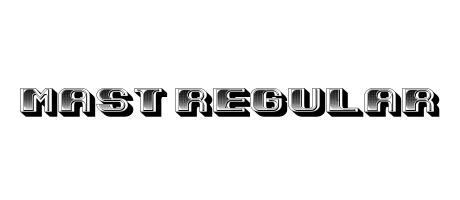
Mast
Mast Regular: A bold, sans-serif typeface with a distinct three-dimensional effect. Each letter boasts a strong, shadowed bevel, giving it a weighty, almost embossed appearance. The style evokes a retro-futuristic or vintage sci-fi feel, suggesting power and solidity. The overall impression is one of confident, impactful lettering.